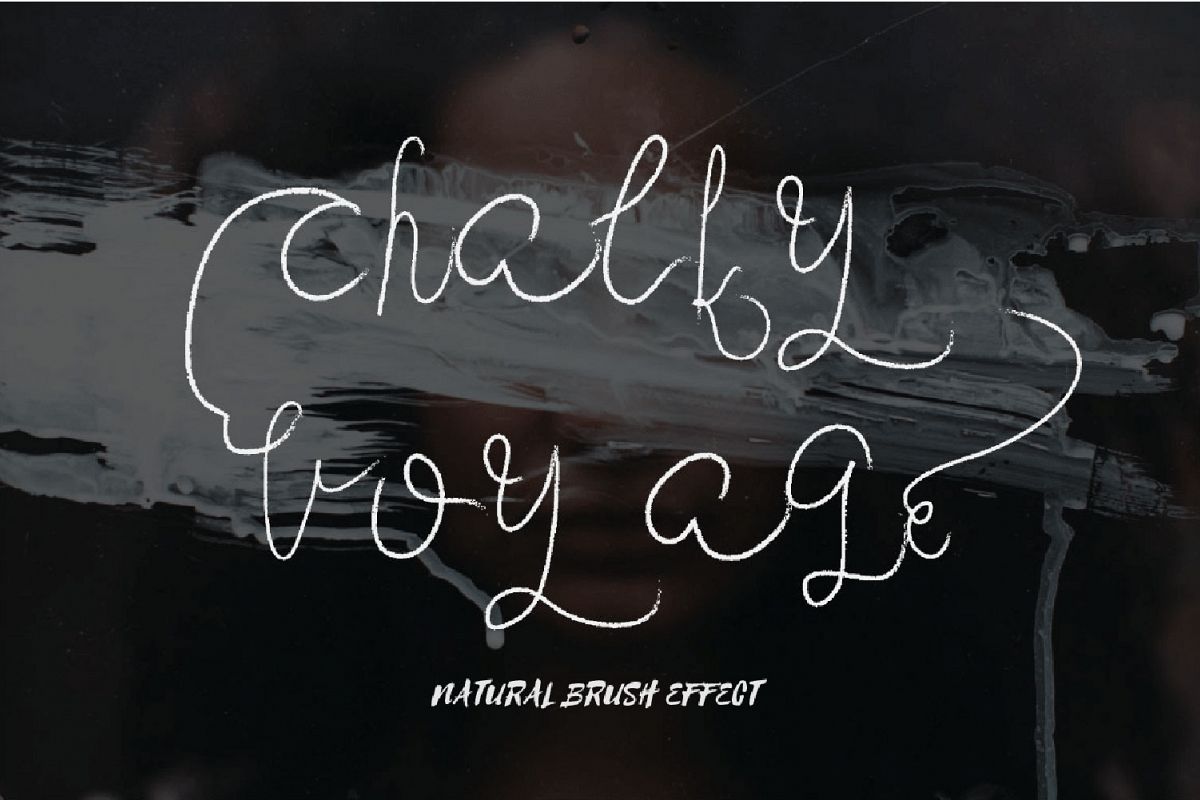
Chalky Voyage Script
Chalky Voyage made with a different touch, a mix formulas between brush & calligraphy style, perfect for designing a logo, t-shirt, wedding invitation, business card and more templates..
To make your design more awesome Chalky Voyage offers you ton of alternates glyphs as an opentype features like stylistic alternates, contextual alternates, discretionery ligatures, stylistic sets 01-03 (f0r lowercase only) it's mean you've such of chance to improve your design assets/projects (all glyphs shown in presentation)..
exacly the another feature that available was 20 hand drawn Chalky Voyages swashs that could make your design more lives !